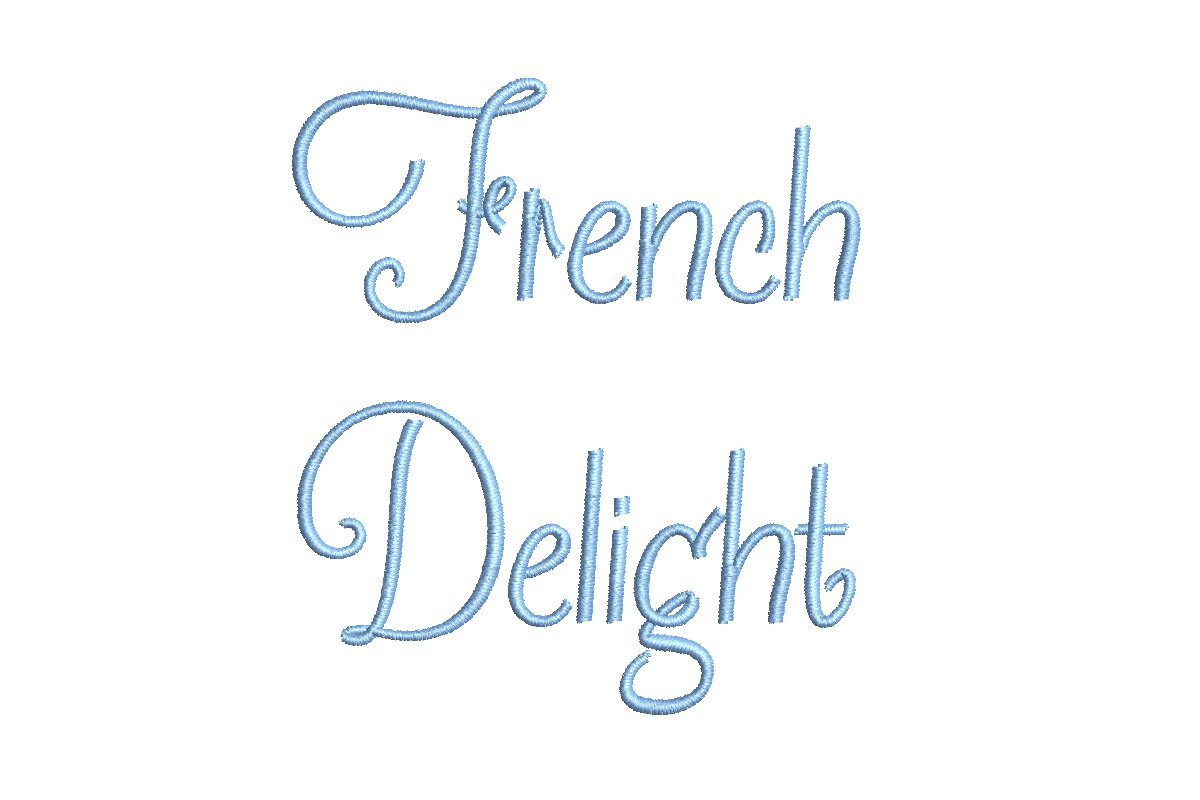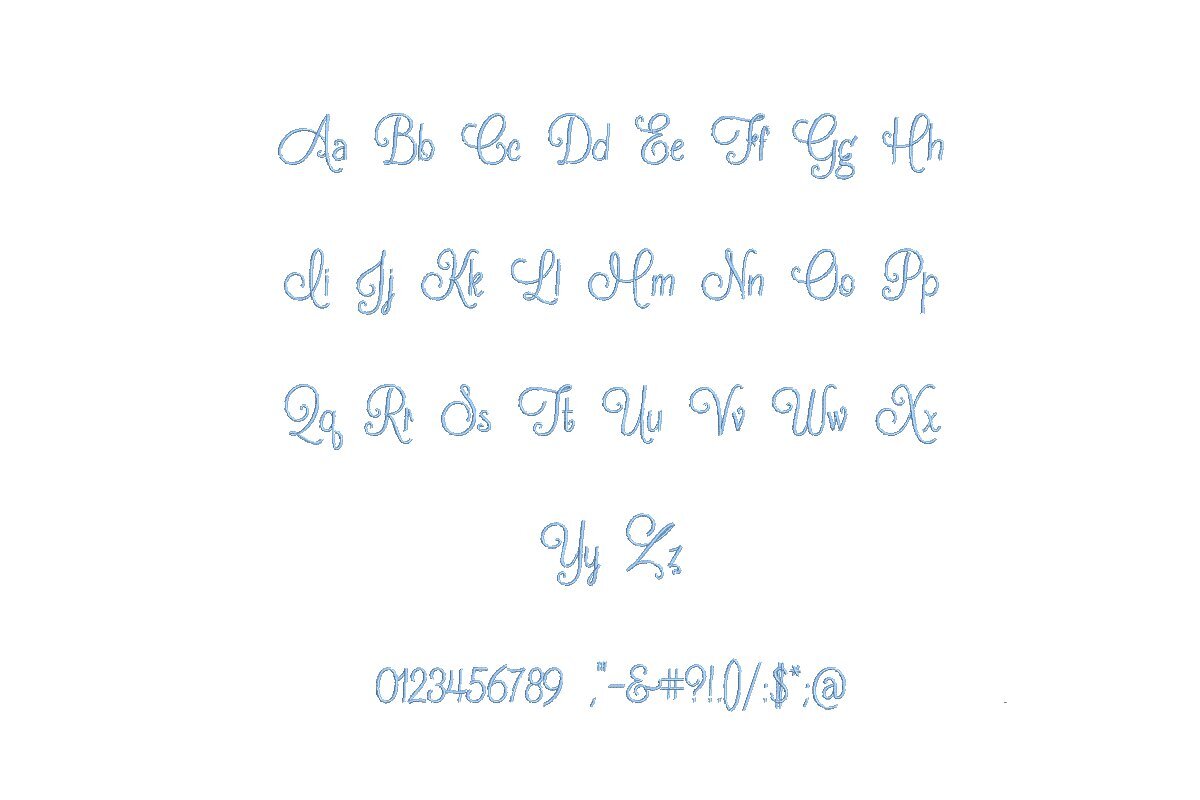
Introducing French Delight ESA Font - Your Passport to Elegance in Embroidery! Specially designed to harmonize seamlessly with Wilcom Studio e4.5.6 and Hatch 3 versions and beyond, this font adds a touch of French finesse to your embroidery projects. Its charming, sophisticated design imparts a unique elegance to your creations, ensuring they stand out effortlessly. Achieve professional-level embroidery with ease, thanks to this user-friendly, digitized font promising precision in every stitch. Immerse yourself in a realm of limitless creative possibilities with French Delight ESA Font, and elevate your Wilcom Studio and Hatch software. Choose sophistication over ordinary - upgrade today for an extraordinary embroidery journey. Your masterpieces deserve the finest.